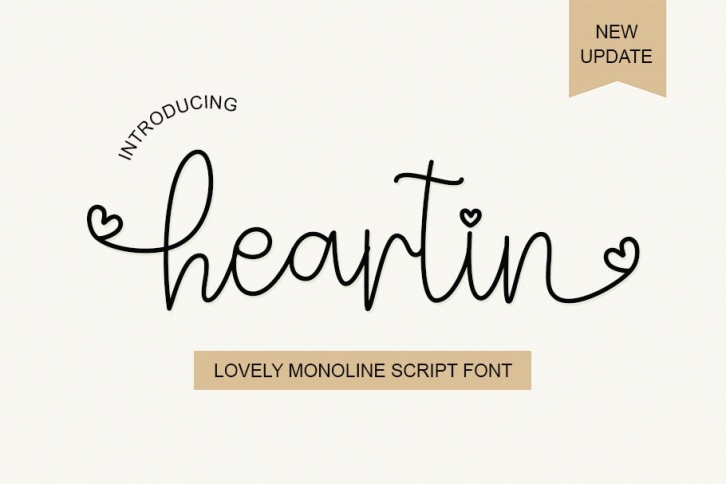
Heartin is a trendy and unique font with an authentic style. It was designed by Rashatype and it's a great choice for creative people who need such a font. It was released on February 19, 2022 and the file size is 10.93 MB. Heartin will add an organic vibe to any design idea!